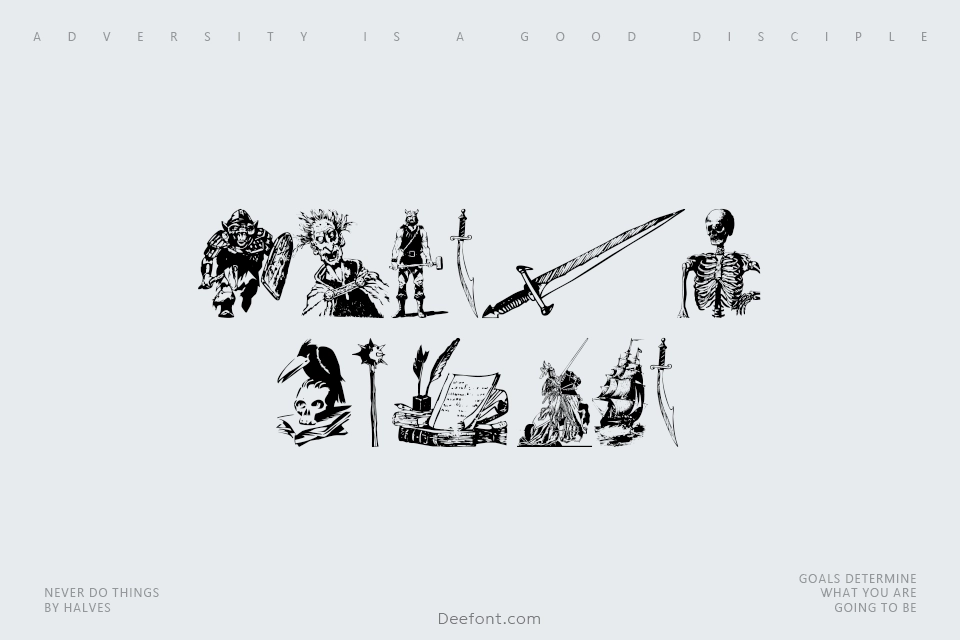
Fantasy Clipart Font
Fantasy Clipart is a dynamic dingbat typeface featuring decorative fantasy-themed illustrations perfect for creative projects. This display font showcases whimsical clipart elements including mythical creatures, medieval symbols, and decorative icons rendered as individual glyphs. Each character transforms into a unique fantasy illustration rather than traditional letterforms, making it ideal for tabletop RPG materials, fantasy book covers, game design, themed invitations, and decorative graphics applications.